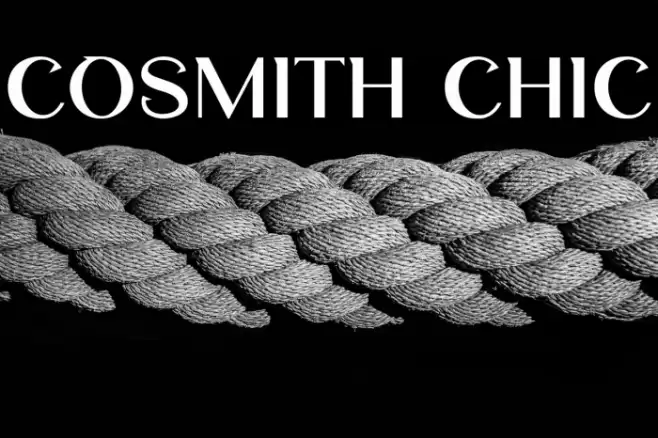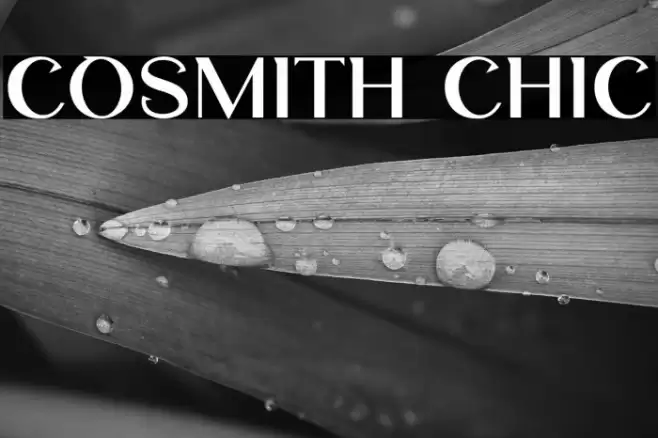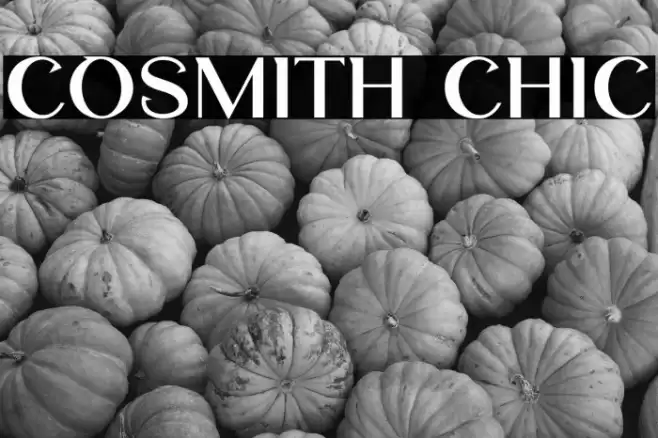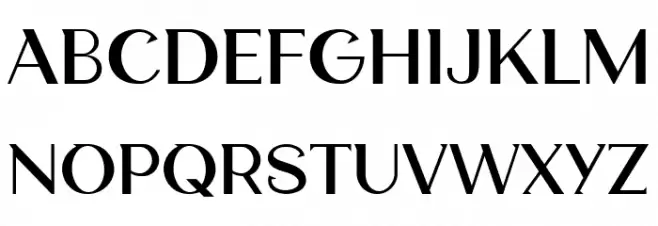
Cosmith Chic Font
Cosmith Chic Description
This font features a modern serif design with clean, sharp lines and a sophisticated appearance. The characters are well-proportioned, with a slight contrast between thick and thin strokes, giving it an elegant and refined look. The serifs are prominent yet not overpowering, adding a touch of classic style to the overall modern aesthetic. The uppercase letters are bold and commanding, while the lowercase letters maintain a consistent style that complements the uppercase. The numbers are clear and legible, making them suitable for various uses. Special characters are included, maintaining the font's cohesive design.
A modern serif font with elegant, sharp lines and balanced proportions from Regular fonts.
- Proposed Projects: Ideal for branding, editorial design, book covers, and luxury product packaging.
- Use Case: Headlines, Logos, Editorial design